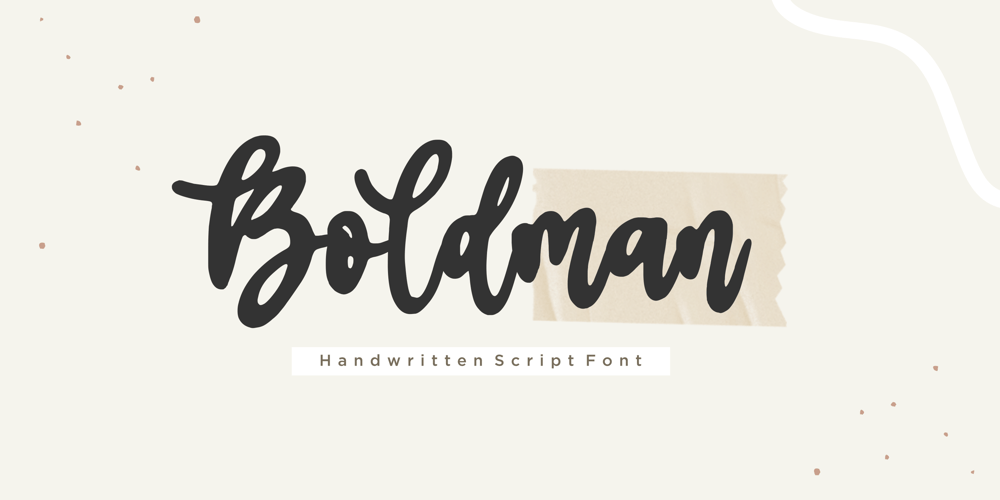
Boldman Font Family was designed by Restu Angga and published by Balpirick. Boldman contains 1 styles and family package options. Boldman is a Handwritten Script Font.Boldman is a chic, trendy script font that emanates confidence and versatility. Its stylish alternates and ligatures make this font the perfect match for any project.Boldman aalso multilingual support.Enjoy the font, feel free to comment or feedback, send me PM or email.Thank you!